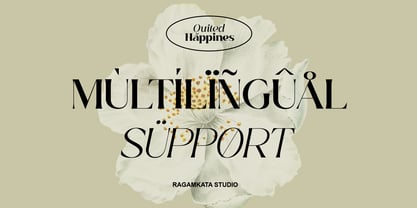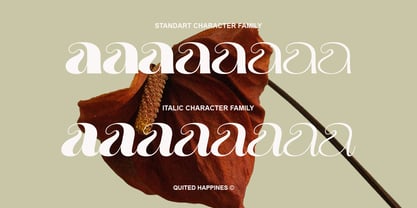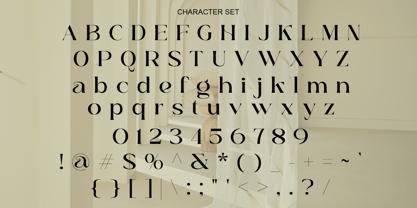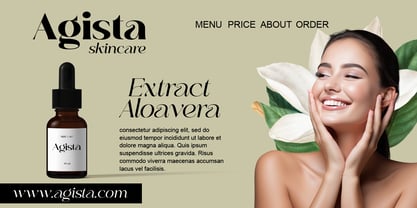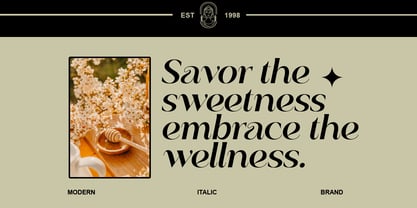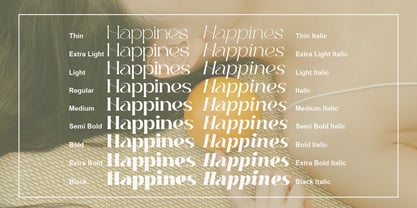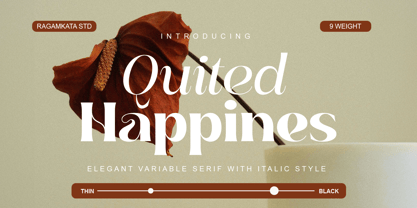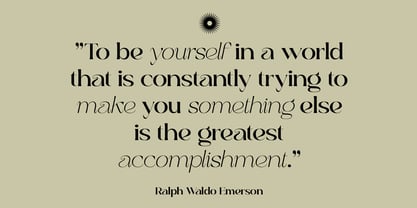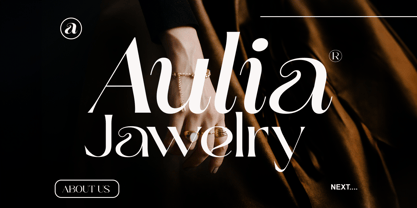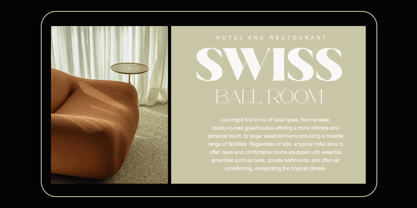
Quited Happines
by RagamKata
The Quited Happines Font Family was designed by Yogiswhara Dio Prakoso Riadi and published by RagamKata. Quited Happines contains 18 styles and family package options. More about this family
Introducing Quited Happines is elegant 9 variable weight serif font with regular and italic style from thin to black for classy display font with matching for any design. This versatile font is best for branding, webdesign project, logo, fashion related concept, and much more. This modern yet timeless font adds warmth and charm to every design, making your work stand out with elegance and creativity.
Designers: Yogiswhara Dio Prakoso Riadi
Foundry: RagamKata